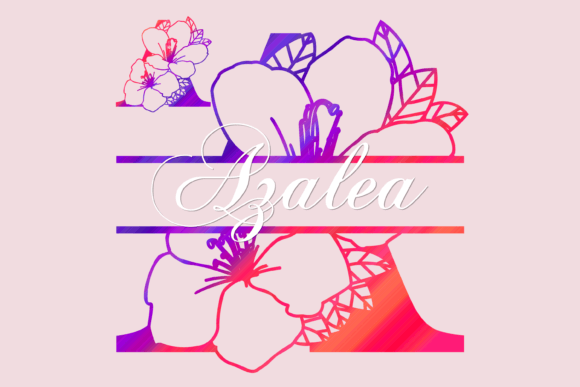
**Azalea Split Font: Adorn Your Creations with Enchanting Floral Touches**
In a world of digital designs, where creativity knows no bounds, the Azalea Split Font emerges as a beautiful symphony of elegance and charm. This decorative font family, crafted with meticulous attention to detail by WADLEN, is an artistic masterpiece that will elevate your projects to new heights of allure.
Experience the magic of Azalea Split, a font duo that unveils two distinct styles – Regular and Split – each possessing its own unique grace. The Regular style exudes a classic beauty with its refined curves and delicate strokes, while the Split style captivates with its alluring split design, adding an enchanting touch of whimsy to your creations.
With Azalea Split, you hold the key to unlocking a treasure trove of creative possibilities. Let your imagination soar as you employ this font to add special decorations to your crafts, transforming them into exquisite works of art. Whether you're a seasoned designer, a DIY enthusiast, or simply someone seeking to infuse their projects with a touch of elegance, Azalea Split will be your trusted companion.
Picture this: you're creating a personalized invitation for a special occasion. With Azalea Split, the words dance across the page, each letter a delicate petal, each word a blooming flower. Your invitation becomes a breathtaking masterpiece, a testament to your impeccable taste and attention to detail.
Or perhaps you're designing a stunning poster for an upcoming event. Azalea Split takes center stage, its enchanting characters commanding attention with their intricate details and flowing lines. Your poster radiates a sense of sophistication and elegance, leaving a lasting impression on all who behold it.
But Azalea Split's versatility extends far beyond invitations and posters. It lends its charm to a myriad of creative endeavors, from DIY projects to custom designs. Embroider a heartfelt message onto a cushion, using Azalea Split to create a personalized gift that will be treasured for years to come. Design unique labels for handmade products, adding a touch of exclusivity that sets your creations apart from the ordinary.
With Azalea Split, every project becomes an opportunity to express your creativity and embrace the beauty that surrounds you. Let this font ignite your imagination and guide you on a journey of artistic exploration. Discover the endless possibilities that await you when you choose Azalea Split, the font that transforms the mundane into the magnificent.